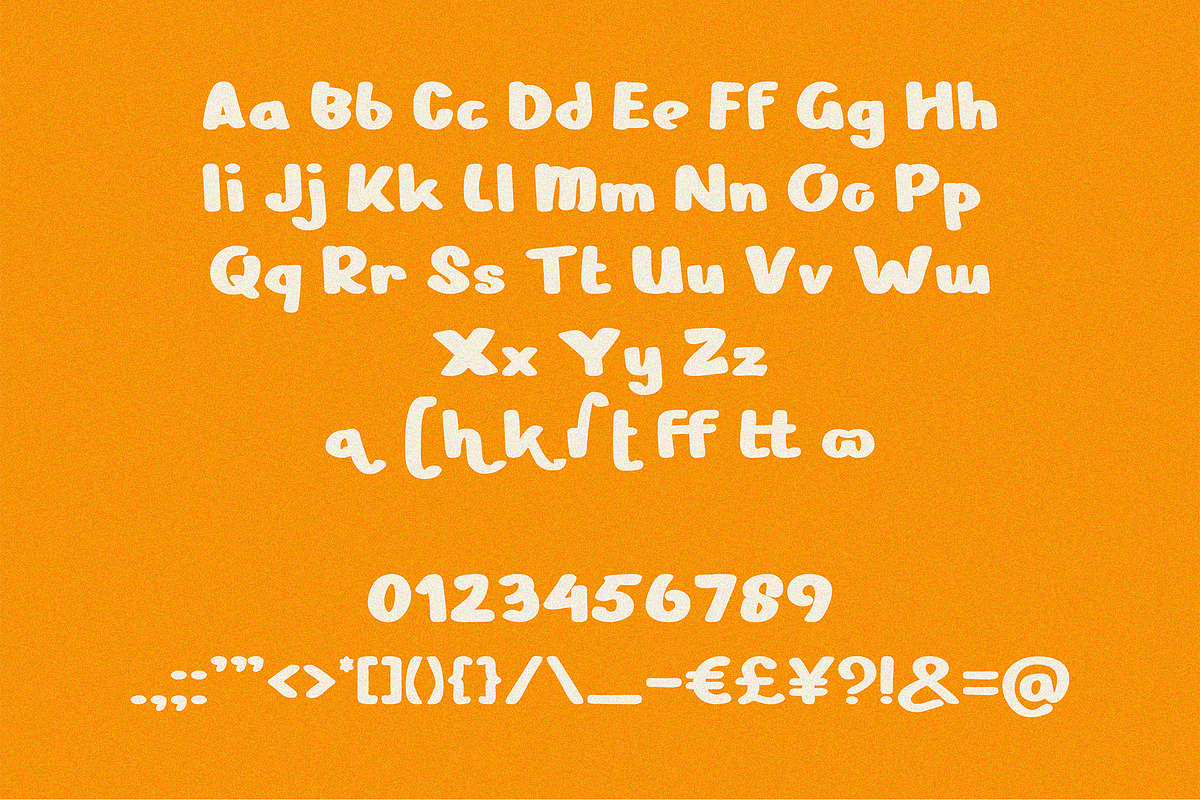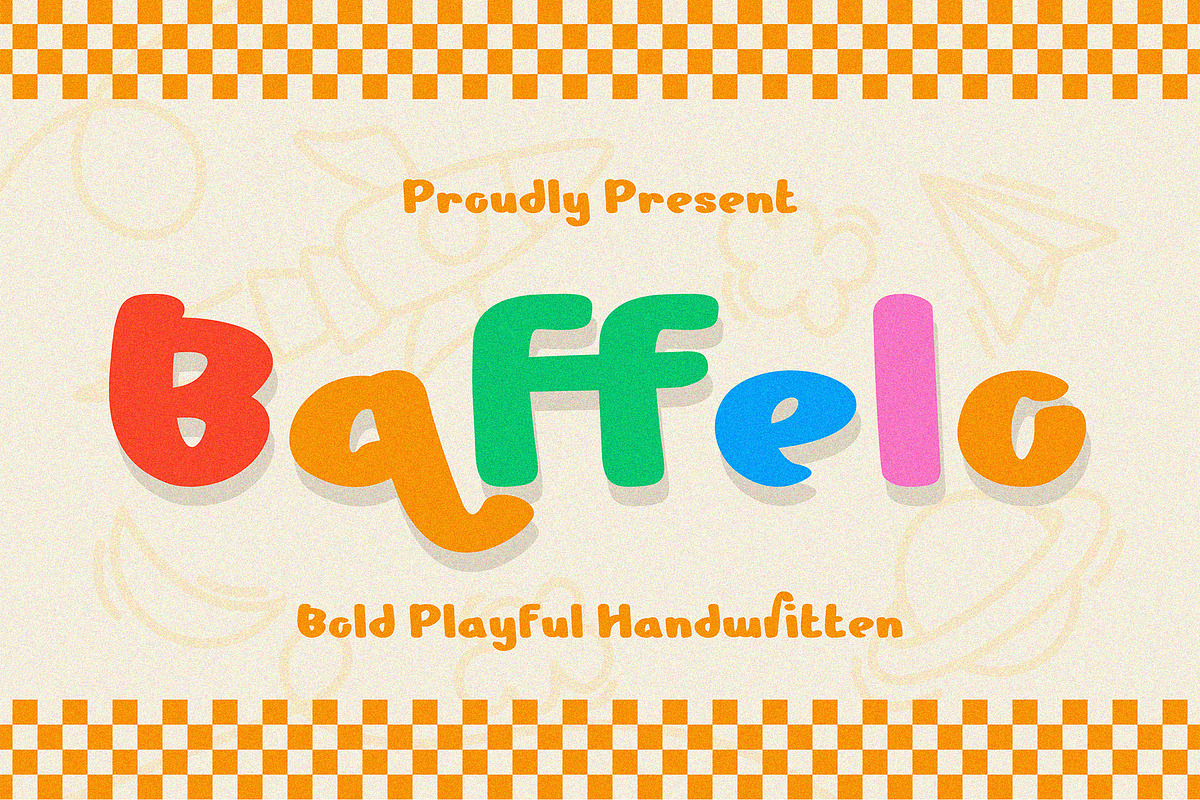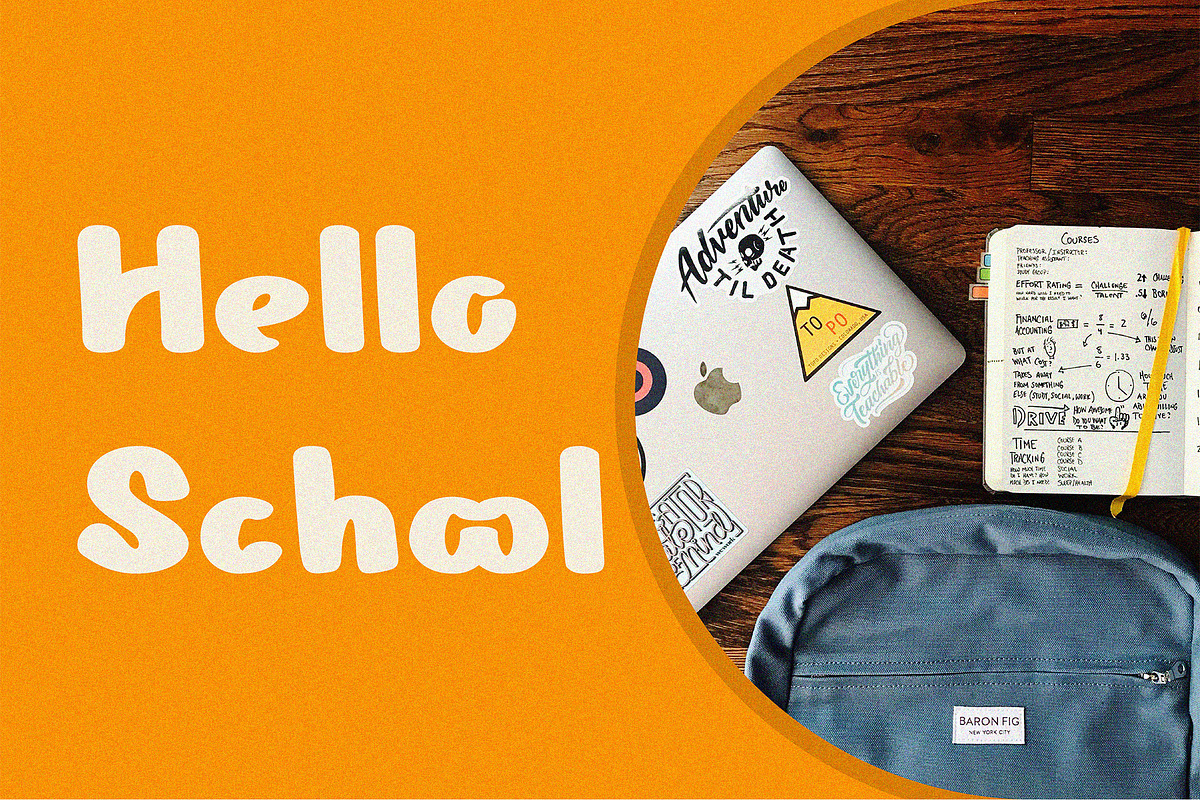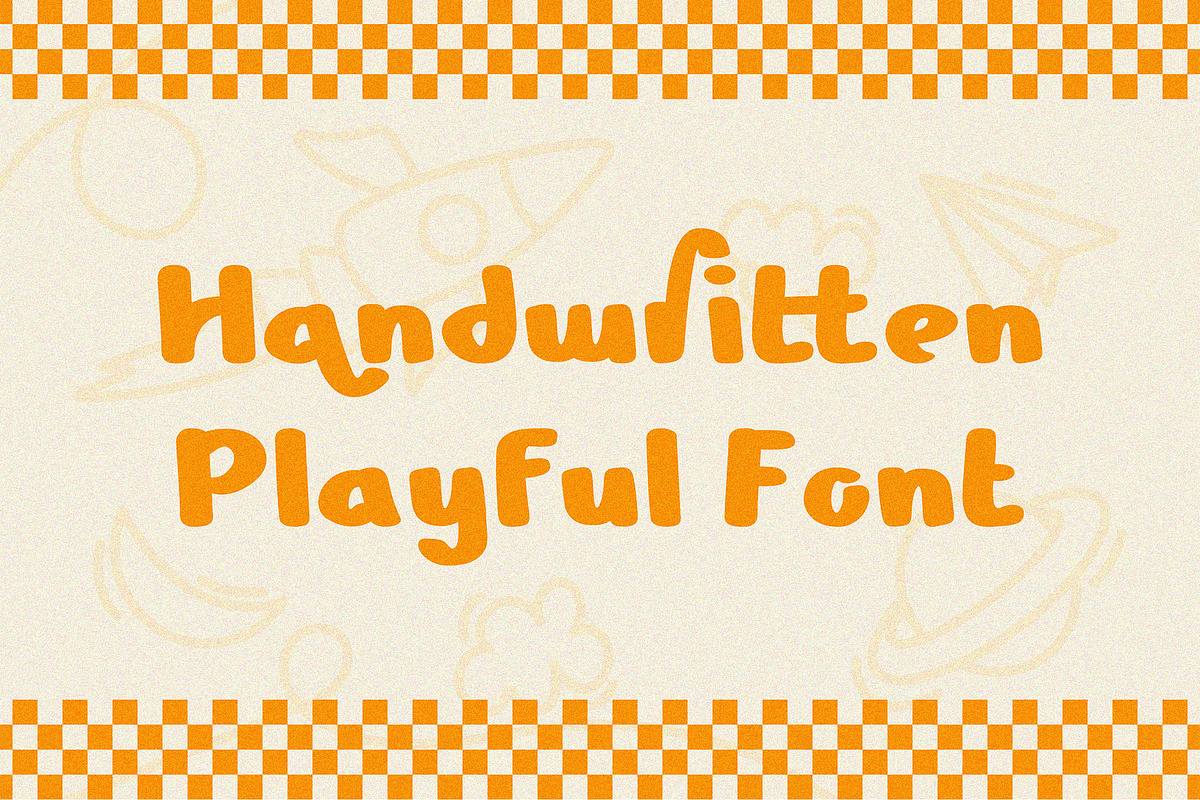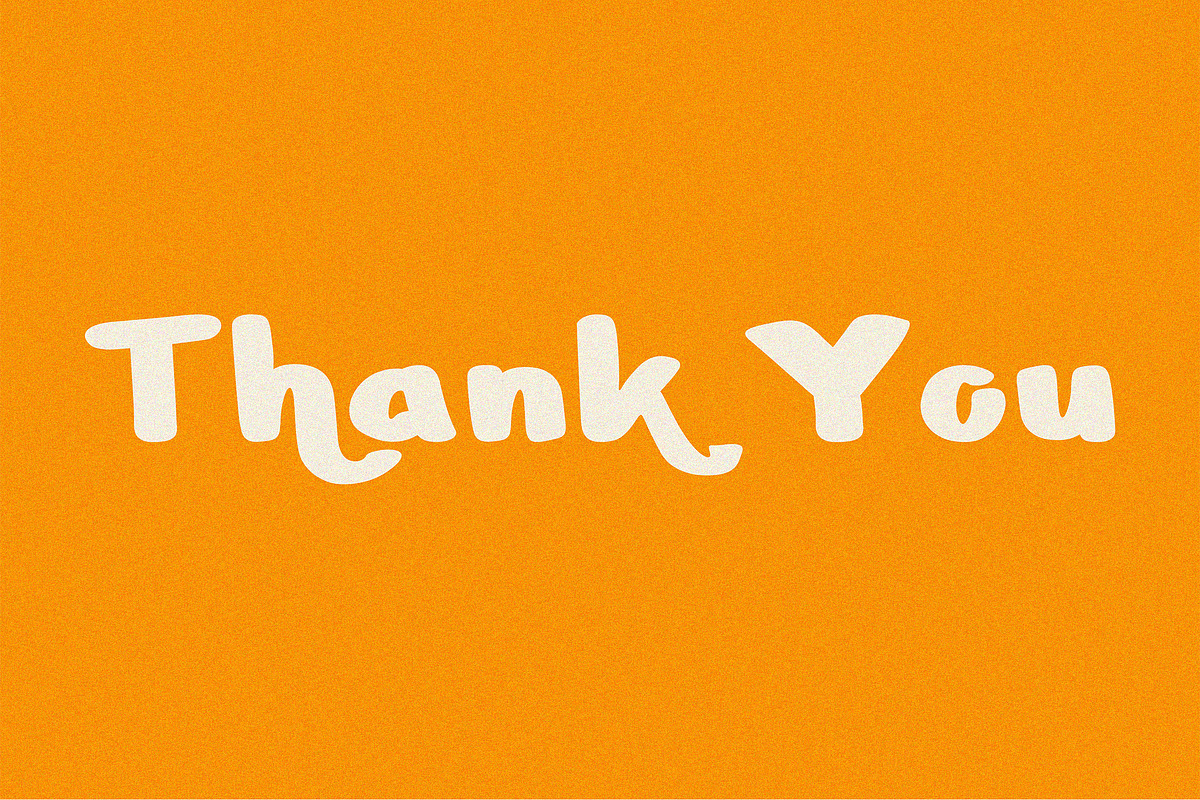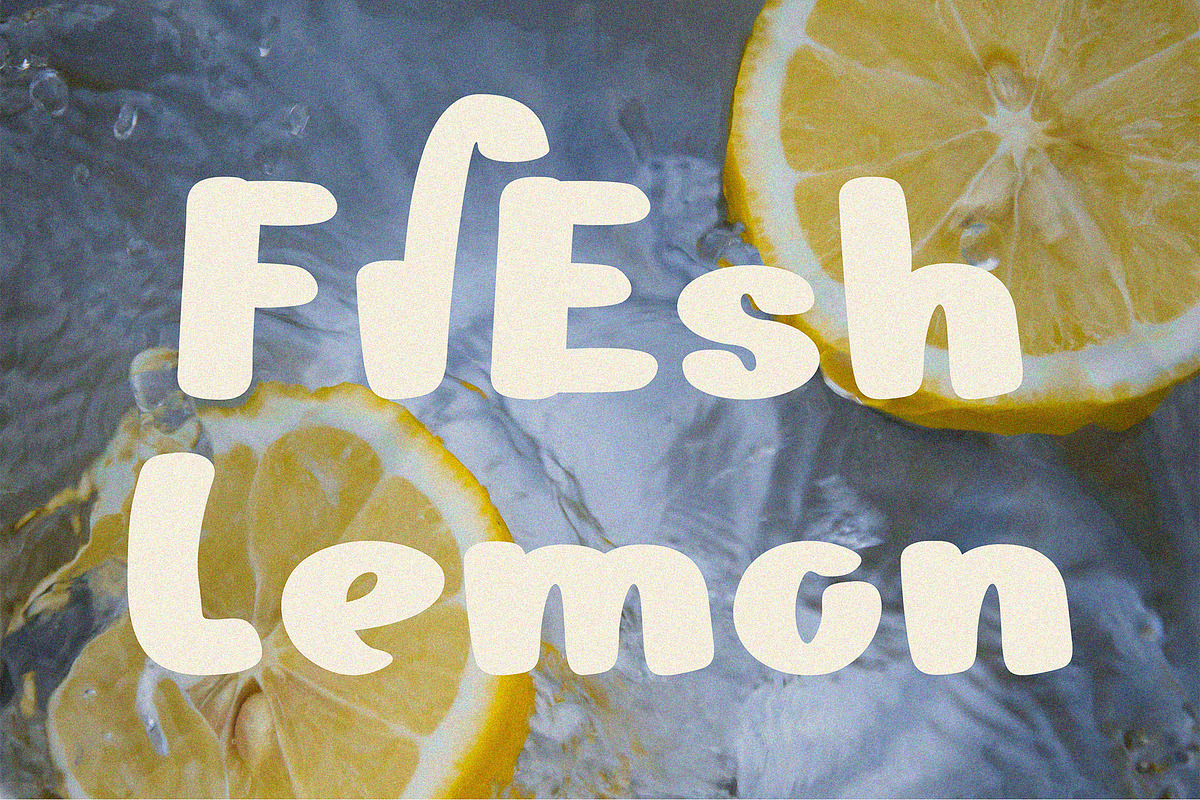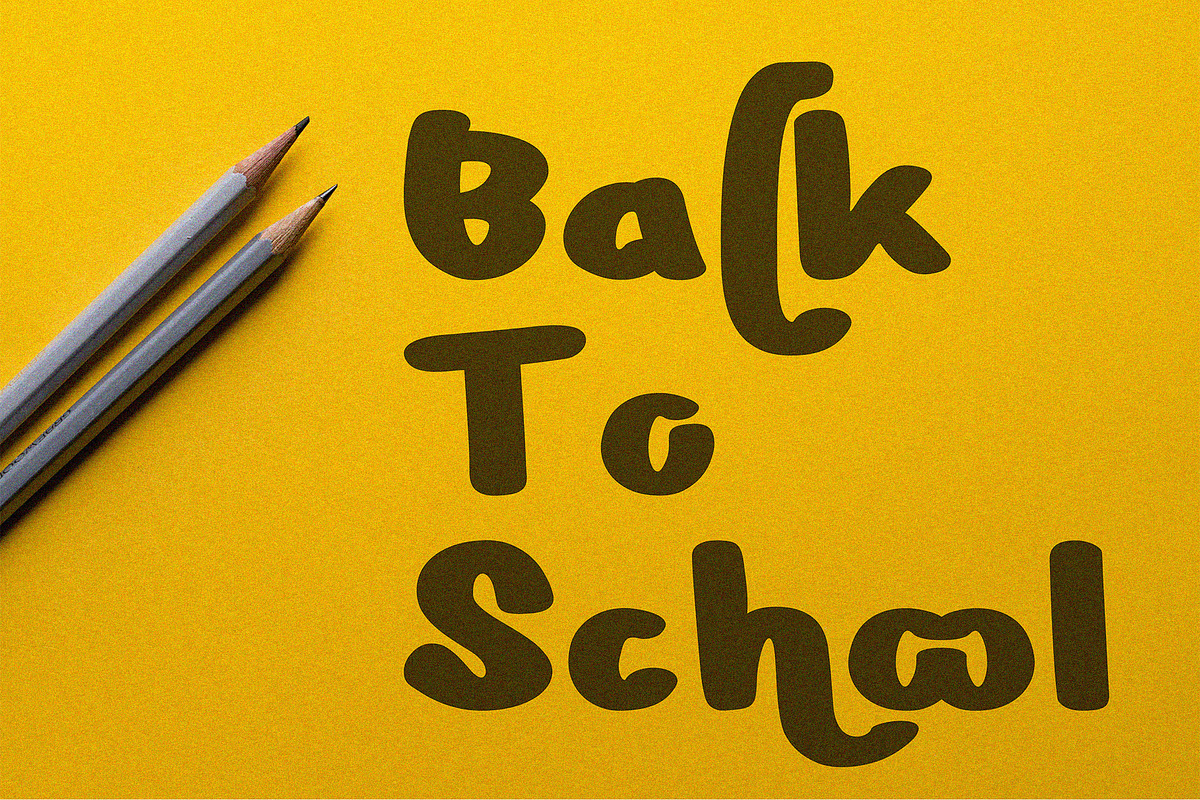
Baffelo Handwritten Playful
The Baffelo font has a cheerful and playful style with rounded, bold, and slightly irregular letterforms, giving it a playful and relaxed feel. The letters are bold for easy reading and immediate attention. This style is suitable for children's themes, fun events, food, snacks, chocolate, ice cream, treats, or children's products, as it conveys a sweet, playful, and informal feel.